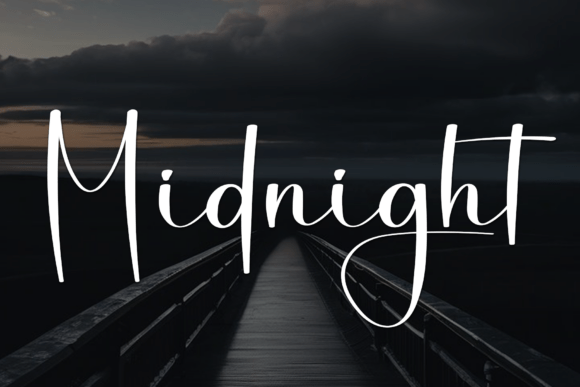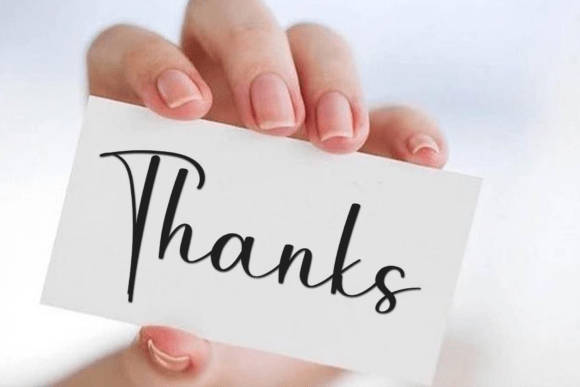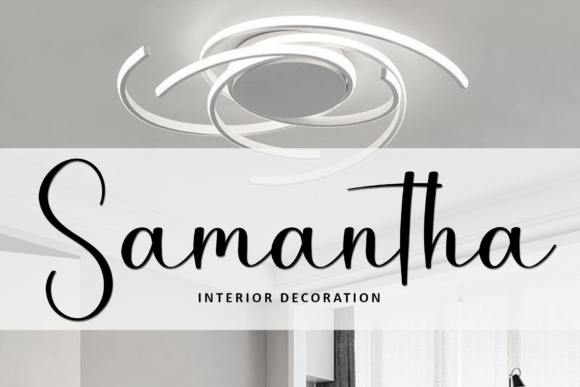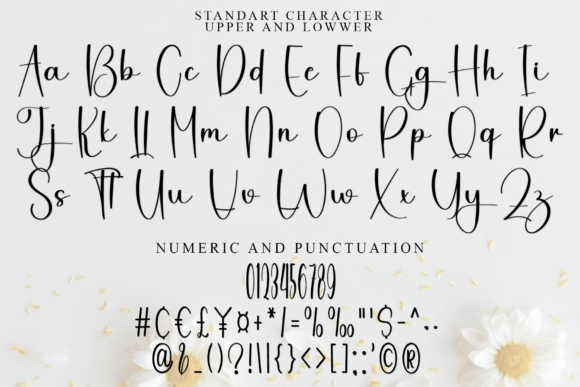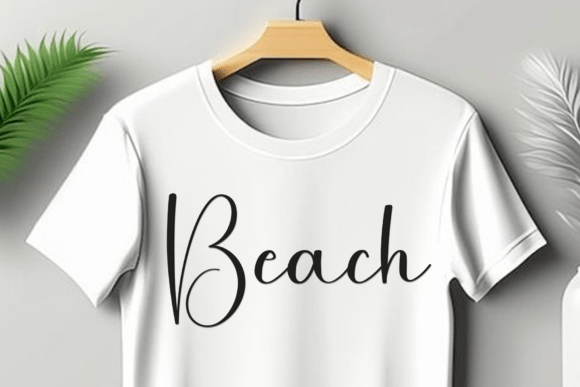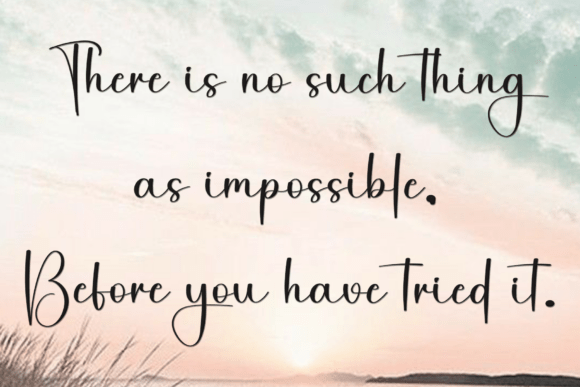
Introduction to Smooth Beautiful Font
Smooth Beautiful is a festive and merry typeface that captures the spirit of the holiday season.
Key Features of Smooth Beautiful Font
Why Choose Smooth Beautiful Font?
Smooth Beautiful Font offers exceptional quality and versatility, making it a valuable addition to your design toolkit. Whether you’re creating for personal projects or commercial use, Smooth Beautiful Font delivers professional results.